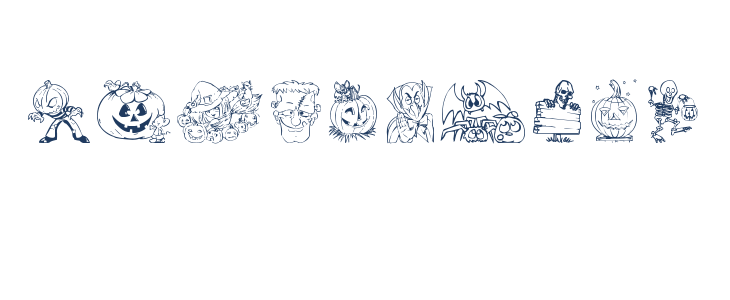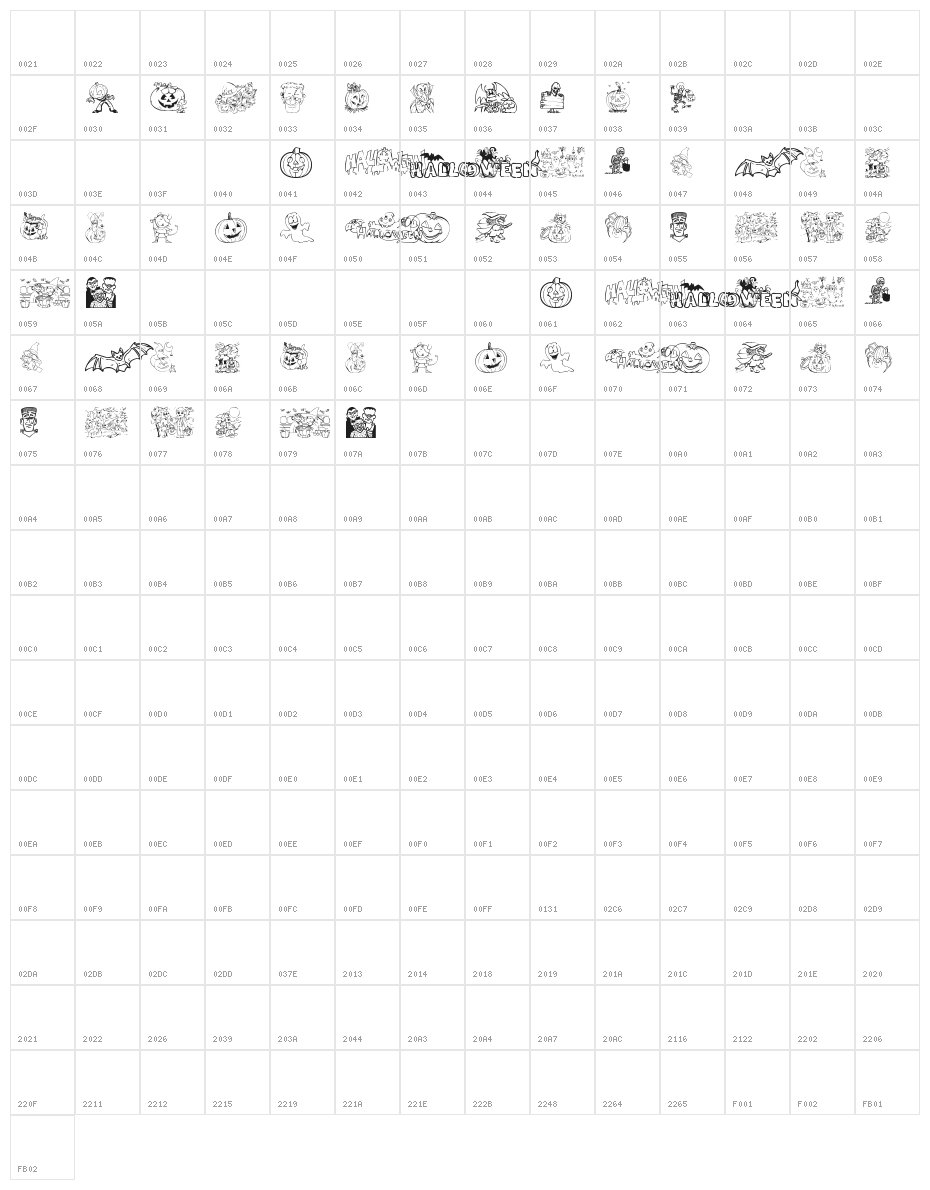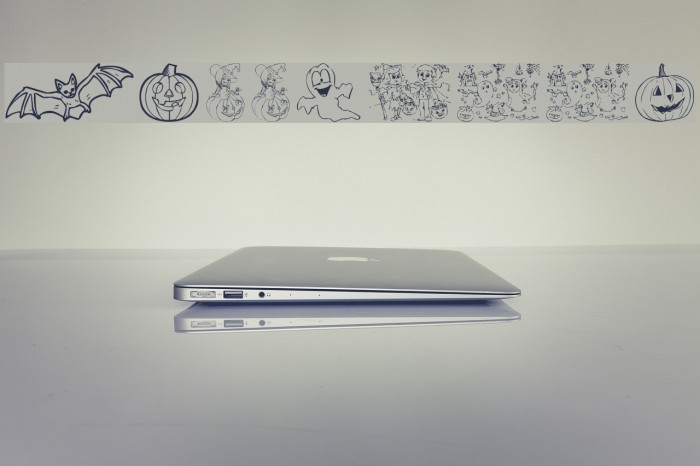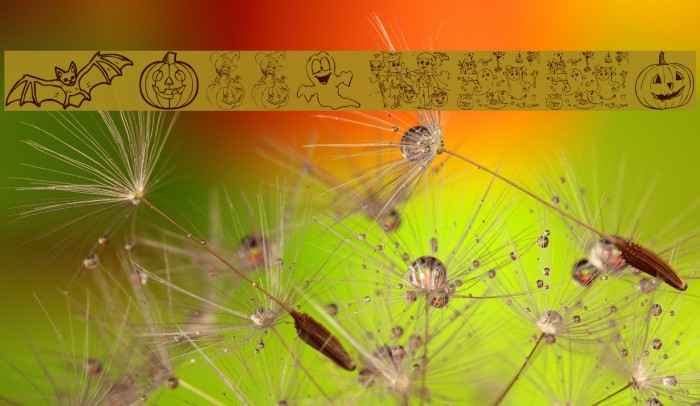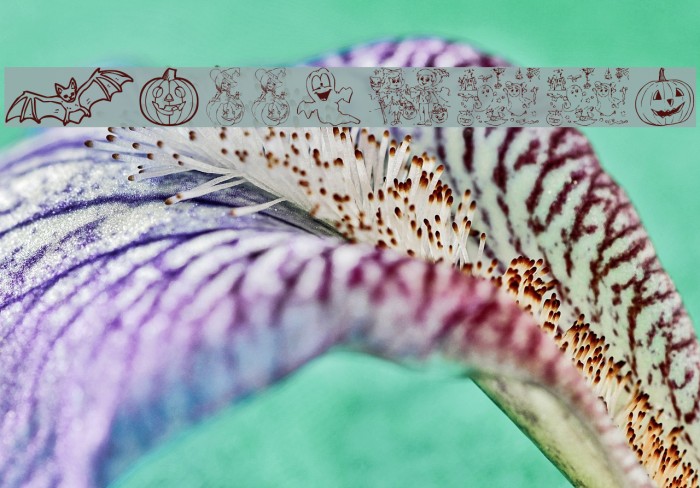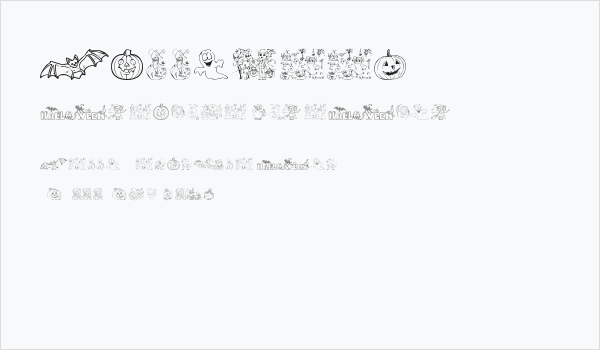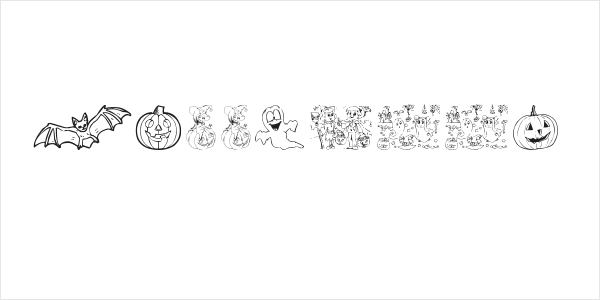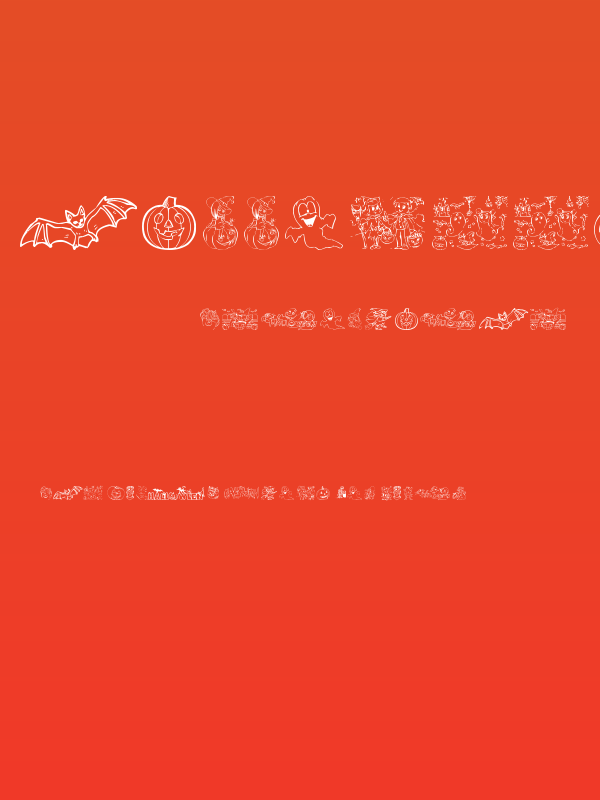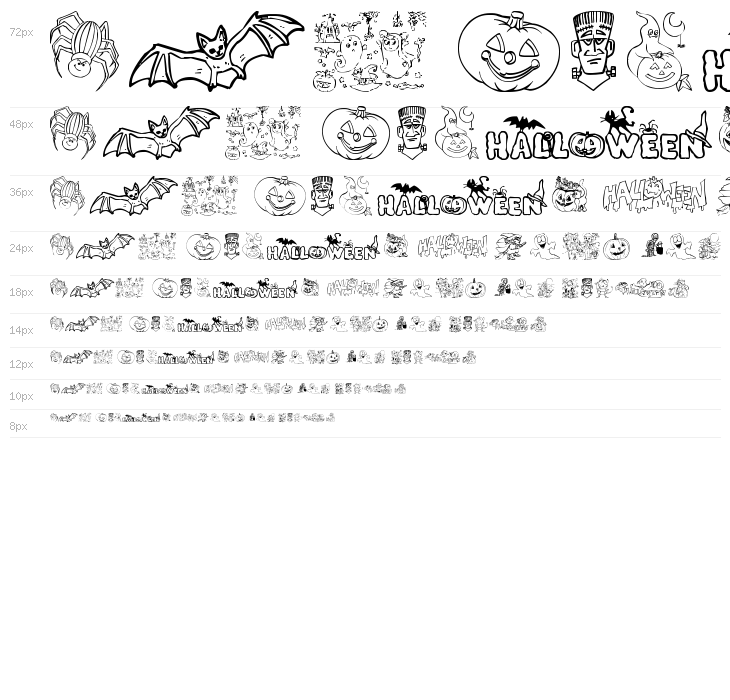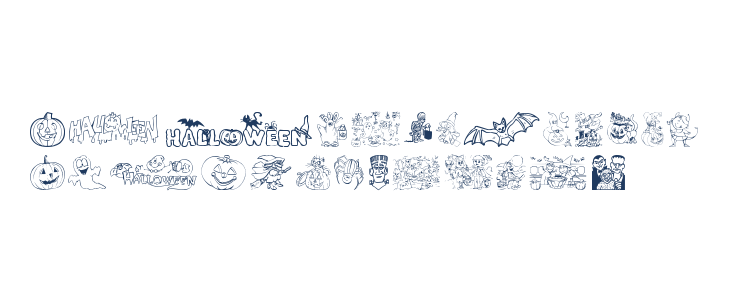
Halloween Font
This decorative font is infused with a playful Halloween theme, featuring letters that are creatively integrated with spooky illustrations such as pumpkins, bats, ghosts, and other iconic Halloween imagery. Each character is uniquely designed to incorporate elements of the holiday, making it visually engaging and thematic. The font is highly decorative, with each letter serving as a mini illustration, which adds a whimsical and festive touch to any project. The style is bold and eye-catching, perfect for capturing the essence of Halloween in a fun and artistic way.
| Proposed Projects | Ideal for Halloween party invitations, themed posters, event flyers, and festive decorations. |